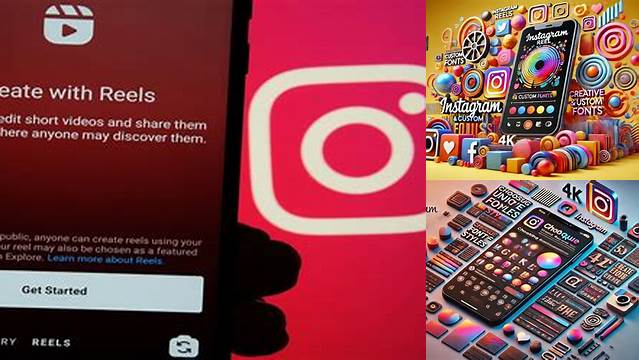
Change Instagram Reels Fonts: A Simple Guide
Hey guys! Ever wondered how to make your Instagram Reels pop with awesome fonts? You're in the right place! In this comprehensive guide, we'll dive deep into the world of Instagram Reels fonts, showing you exactly how to add them and make your content stand out. From the built-in options to cool third-party apps, we've got you covered. Get ready to elevate your Reel game and captivate your audience with visually stunning text!
In today's fast-paced digital world, capturing attention is key, and Instagram Reels have emerged as a powerful tool for self-expression and brand promotion. But let's face it, a great video can fall flat if the text looks bland or doesn't match your vibe. That's where fonts come in! Choosing the right font can dramatically enhance your message, making your Reels more engaging and professional. Think of fonts as the voice of your text – they convey tone, personality, and style. Whether you're going for fun and quirky, sleek and modern, or classic and elegant, the perfect font can help you achieve your desired aesthetic. This guide is your ultimate resource for mastering the art of adding fonts to your Instagram Reels, ensuring your content not only looks amazing but also resonates with your audience on a deeper level. So, grab your phone, fire up Instagram, and let's get started on this font-tastic journey!
Let's get into the basics, shall we? Instagram Reels offers a range of built-in fonts, which are a great starting point. But to really stand out, you might want to explore other options. Knowing the font landscape within Instagram Reels is crucial for creating content that truly shines. Instagram’s built-in fonts are designed to be versatile and accessible, catering to a wide range of styles and preferences. These fonts include classics like Sans Serif, Serif, and Modern, each with its own distinct personality. While the default options are convenient and easy to use, they can sometimes feel limiting if you're aiming for a unique or specific aesthetic. This is where understanding the broader font landscape becomes essential. By exploring beyond the built-in options, you can discover a world of creative possibilities that can elevate your Reels from ordinary to extraordinary. From handwritten scripts to bold display fonts, the right choice can make your message pop and capture your audience’s attention. So, let's dive deeper into how you can unlock these hidden gems and make your Reels truly stand out from the crowd.
Built-In Font Options
Instagram's built-in fonts are your go-to for quick and easy text additions. They offer a decent variety, but sometimes you need more flair, you know? The built-in font options in Instagram Reels are designed to provide a solid foundation for your text needs. These fonts are carefully selected to ensure readability and compatibility across various devices and screen sizes. You'll find a mix of classic and contemporary styles, including options like Sans Serif for a clean and modern look, Serif for a more traditional and elegant feel, and other styles that offer a touch of personality. While these fonts are convenient and readily available, they may not always align with your specific creative vision. For instance, if you're looking to create a Reel with a vintage vibe, the built-in fonts might not offer the exact style you need. Similarly, if you're aiming for a bold and attention-grabbing effect, the default options might fall short. This is why exploring alternative font options is crucial for truly customizing your Reels and making them stand out. By understanding the limitations of the built-in fonts, you can better appreciate the value of third-party apps and creative workarounds that allow you to inject your unique style into your content.
Limitations of Native Fonts
The native fonts are cool, but they can be a bit limiting. If you're aiming for a specific brand aesthetic or unique look, you might need to venture beyond. The limitations of native fonts in Instagram Reels can be a significant hurdle for creators aiming for a distinctive brand identity or a specific visual style. While the built-in options offer a basic level of customization, they often lack the character and uniqueness needed to truly make your content stand out. For businesses and influencers, maintaining a consistent brand aesthetic is crucial for building recognition and loyalty. Using the same fonts across all your content helps create a cohesive visual identity that resonates with your audience. However, if you're restricted to the native fonts, achieving this level of consistency can be challenging. Similarly, if you have a particular creative vision for your Reels, the limited font selection might stifle your ability to fully express your ideas. For example, you might be looking for a handwritten font to convey a personal touch or a bold display font to make a strong statement. In these cases, the native fonts simply won't cut it. Understanding these limitations is the first step in exploring alternative font options and unlocking the full creative potential of your Instagram Reels. By recognizing what the built-in fonts can't offer, you can better appreciate the value of third-party apps and innovative techniques that allow you to break free from these constraints.
Now, let's get to the juicy part! Adding custom fonts can really elevate your Reels. There are a few ways to do this, so let's break it down. Adding custom fonts to your Instagram Reels is a game-changer for creators looking to inject personality and style into their content. While Instagram's built-in font options offer a decent starting point, they can sometimes feel limiting if you're aiming for a unique or specific aesthetic. Custom fonts allow you to break free from these constraints and truly express your creative vision. Whether you're a business looking to maintain a consistent brand identity or an individual wanting to add a personal touch, custom fonts can help you achieve your goals. The process of adding custom fonts might seem daunting at first, but with the right tools and techniques, it's surprisingly straightforward. There are several methods you can use, each with its own set of advantages and considerations. From using third-party apps to employing clever workarounds, this section will guide you through the various options available, empowering you to take your Reels to the next level. So, let's dive in and explore the exciting world of custom fonts on Instagram Reels!
Using Third-Party Apps
Third-party apps are your best friend when it comes to custom fonts. Apps like Canva, Adobe Spark Post, and Over offer a wide range of fonts and editing tools. These apps are a goldmine for creators looking to add custom fonts and elevate their Instagram Reels. Third-party apps like Canva, Adobe Spark Post, and Over provide a vast library of fonts, ranging from classic to quirky, ensuring you'll find the perfect match for your content. These apps not only offer a wide selection of fonts but also come packed with powerful editing tools that allow you to customize your text further. You can adjust the size, color, spacing, and alignment of your text, as well as add effects like shadows and outlines. This level of control is crucial for creating visually appealing and engaging Reels that capture your audience's attention. Moreover, these apps often offer pre-designed templates and graphics that can complement your text and enhance your overall aesthetic. Whether you're a beginner or a seasoned pro, these tools make it easy to create professional-looking Reels that stand out from the crowd. By leveraging the power of third-party apps, you can transform your Instagram Reels into visually stunning masterpieces that truly reflect your brand or personal style. So, let's explore how to use these apps effectively to add custom fonts and take your content to the next level.
Canva
Canva is a super popular graphic design tool, and it's perfect for adding fonts to Reels. It's user-friendly and has tons of options. Canva has become a go-to platform for creators looking to design stunning visuals for their social media content, and its capabilities extend seamlessly to Instagram Reels. The platform's user-friendly interface and vast library of resources make it an ideal choice for adding custom fonts and creating eye-catching Reels. One of the standout features of Canva is its extensive font collection, which includes everything from classic typefaces to trendy, modern styles. Whether you're looking for a bold sans-serif font to make a statement or an elegant script font to add a touch of sophistication, Canva has you covered. The platform also allows you to upload your own fonts, giving you even more flexibility and control over your text design. In addition to fonts, Canva offers a wide range of design elements, including templates, graphics, and stock photos, which you can use to enhance your Reels further. You can easily customize these elements to match your brand or personal style, creating a cohesive and professional look. Canva's intuitive drag-and-drop interface makes the design process a breeze, even for beginners. You can quickly add text, images, and graphics to your Reels, adjust their positioning and size, and apply various effects and filters. The platform also offers real-time collaboration features, allowing you to work with others on your Reels projects. With Canva, you can create visually stunning Instagram Reels that capture your audience's attention and help you achieve your content goals. So, let's explore how to use Canva effectively to add custom fonts and create Reels that truly stand out.
Steps to add fonts using Canva:
- Create a design: Start by creating a design in Canva with the correct Reel dimensions (1080 x 1920 pixels).
- Add your video: Upload your video to Canva.
- Add text: Use the text tool to add your message.
- Choose a font: Select from Canva's vast font library or upload your own.
- Customize: Adjust the size, color, and effects to your liking.
- Download: Download your Reel as an MP4 file.
- Upload to Instagram: Upload the video to Instagram Reels.
Adobe Spark Post
Adobe Spark Post is another fantastic option. It's part of the Adobe suite, so you know it's high-quality! Adobe Spark Post is a powerful and versatile design tool that seamlessly integrates with the Adobe ecosystem, making it an excellent choice for adding custom fonts to your Instagram Reels. As part of the Adobe Creative Cloud suite, Spark Post benefits from Adobe's reputation for quality and innovation, offering a robust set of features and capabilities. One of the key advantages of using Adobe Spark Post is its extensive font library, which includes a wide range of professionally designed typefaces. Whether you're looking for a classic serif font, a modern sans-serif font, or a creative display font, Spark Post has something to suit your needs. The platform also allows you to upload your own fonts, giving you even greater flexibility and control over your text design. In addition to fonts, Adobe Spark Post offers a wealth of design resources, including templates, graphics, and stock photos. You can use these resources to create visually stunning Reels that capture your audience's attention. The platform's intuitive interface makes it easy to add text, images, and graphics to your Reels, adjust their positioning and size, and apply various effects and filters. Spark Post also offers unique features like animated text effects and motion graphics, which can add an extra layer of visual interest to your Reels. The platform's seamless integration with other Adobe Creative Cloud apps, such as Photoshop and Illustrator, allows you to import assets and create even more sophisticated designs. With Adobe Spark Post, you can create professional-looking Instagram Reels that reflect your brand or personal style. So, let's explore how to use Adobe Spark Post effectively to add custom fonts and create Reels that truly stand out.
Are there any copyright issues with using custom fonts?
Yes, font licenses are a thing! Make sure you have the right to use the font, especially for commercial purposes. Yes, copyright issues related to font usage are a crucial consideration when adding custom fonts to your Instagram Reels, especially if you're using your Reels for commercial purposes. Font licenses dictate how a font can be used, and violating these licenses can lead to legal consequences. Most fonts are protected by copyright law, which means that the creator of the font has the exclusive right to control how it is used. Font licenses grant you the right to use the font in specific ways, such as for personal or commercial projects. There are different types of font licenses, each with its own set of terms and conditions. Some licenses allow you to use the font for free for personal projects but require you to purchase a commercial license if you want to use it for business purposes. Other licenses may have restrictions on how you can modify the font or embed it in digital documents. When using custom fonts in your Instagram Reels, it's essential to ensure that you have the right to use the font for your intended purpose. If you're using a font for commercial purposes, such as promoting your business or selling products, you'll likely need a commercial license. Before using a custom font, carefully review the font license to understand the terms and conditions. If you're unsure whether you have the right to use a font, it's best to err on the side of caution and contact the font creator or foundry for clarification. There are many websites that offer free fonts for personal and commercial use, but it's still essential to check the license terms before using them. By understanding font licenses and respecting copyright law, you can avoid legal issues and ensure that you're using fonts ethically and responsibly. So, let's explore how to find fonts with the appropriate licenses and where to source them.